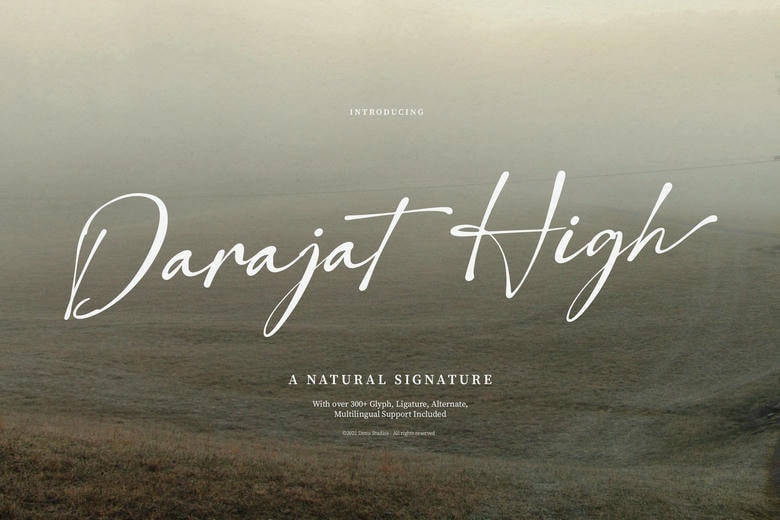
Darajat High Font
Darajat High is a natural and dainty signature font, suitable for any projects such as: logos, branding projects, homeware designs, product packaging, mugs, quotes, posters, shopping bags, t-shirts, book covers, name card, invitation cards, greeting cards, label, photography, watermark, special events, and all your other lovely projects that need a Natural Signature taste.
Darajat High Handwritten Script Font